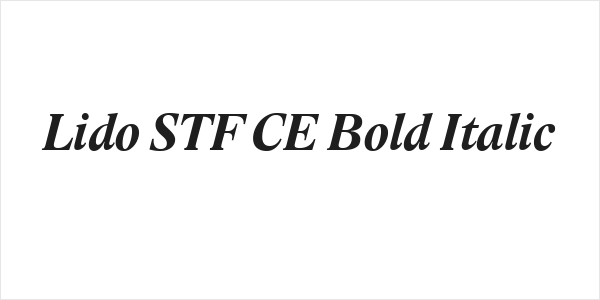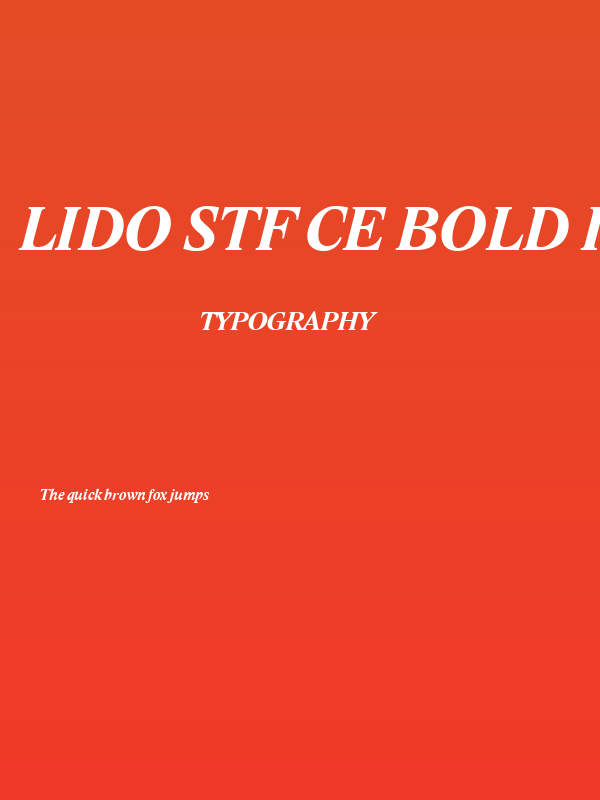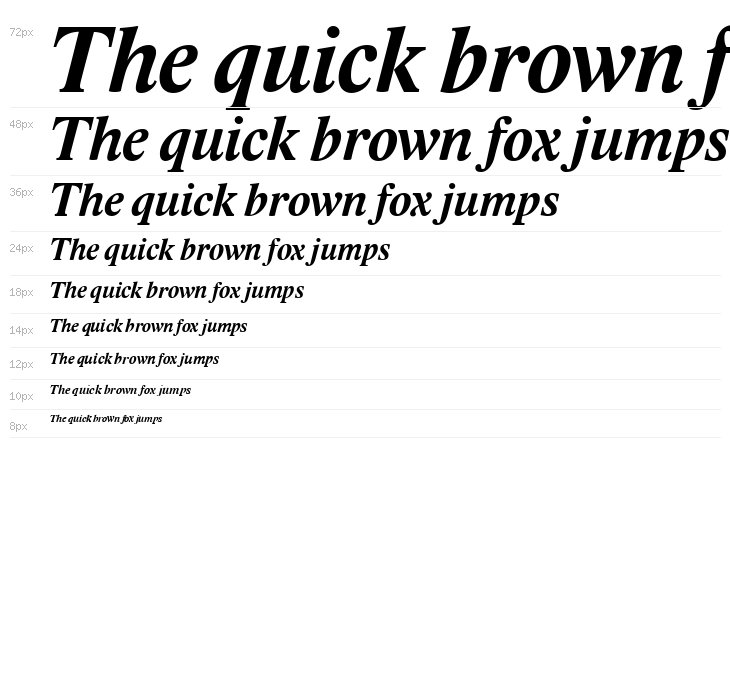
Lido STF CE Bold Italic Font
Lido STF CE Bold Italic Description
This font exhibits a bold and italicized style, characterized by its strong and dynamic presence. The letters are well-defined with a slight slant, giving it an elegant yet assertive appearance. The strokes are thick, providing a high contrast that enhances readability while maintaining a sophisticated look. The serifs are prominent, adding a touch of classic elegance to the overall design. This font is versatile, suitable for both formal and creative applications, and it stands out in any context due to its boldness and slanted posture.
| Use Case | Headlines, Logos, Editorial design |
| Proposed Projects | Ideal for headlines, branding, editorial design, and advertising where a strong and elegant presence is required. |